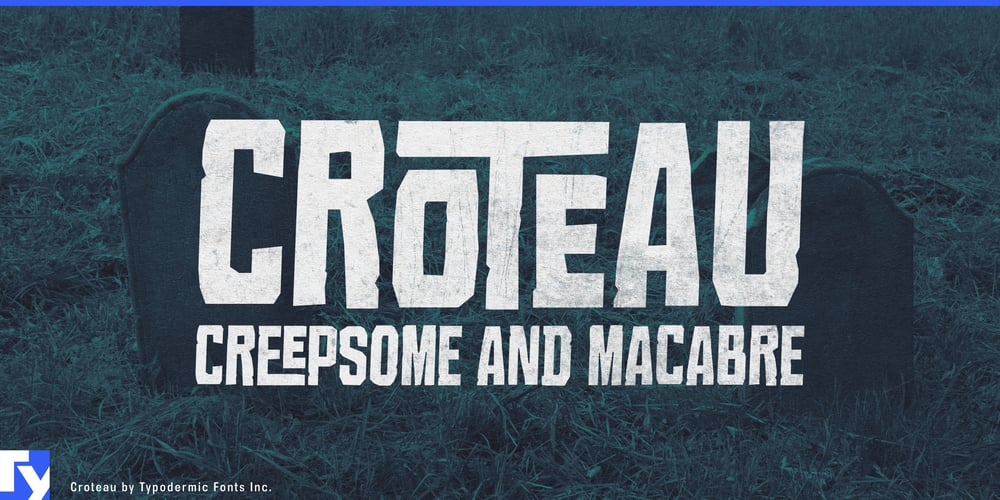
Croteau Font Family was designed by Ray Larabie and published by Typodermic. Croteau contains 1 styles and family package options. Step into the shadows with Croteau, a typeface that doesn’t just flirt with darkness—it embraces it with open arms. Born from the nightmarish visions of 1960s horror cinema, Croteau isn’t just a font; it’s an experience that will send shivers down the spine of your audience and breathe ghastly life into your designs.Croteau doesn’t merely communicate—it haunts. With its 250 bespoke ligatures, this typeface conjures an interlocking letter effect that’s as mesmerizing as it is unsettling. Each character seems to writhe and twist, creating a tapestry of terror that breaks the monotony of standard type and replaces it with an eerie dance of letters. This is typography that doesn’t just sit on the page—it lurks, ready to leap out at unsuspecting readers.In OpenType-savvy applications, Croteau truly comes alive. The interplay of its standard ligatures creates an atmosphere of unease that permeates every word. But beware: turning off this feature might break the spell. Keep the “standard ligatures” activated to ensure your message retains its full, horrifying potential. Croteau’s ability to terrify transcends language barriers. Supporting over 100 Latin-based European writing systems, it spreads its eerie influence across borders. Whether you’re crafting a bone-chilling novel in Norwegian or designing a haunted house poster in Polish, Croteau ensures your message remains as terrifying in Zulu as it is in Afrikaans.Imagine the possibilities: film posters that seem to bleed fear, book covers that readers hesitate to touch, or event invitations that promise a night of delightful fright. Croteau isn’t just a typeface—it’s a portal to a world where every letter holds the potential for horror. But Croteau isn’t just about fear—it’s about artistry. Its design pays homage to the golden age of horror, capturing the essence of a time when shadows loomed larger and every creak of a floorboard held potential for terror. It’s a tool for designers who understand that true horror lies not in what’s shown, but in what’s suggested.So, are you ready to give your audience goosebumps? To create designs that linger in the mind long after the lights go out? Embrace the darkness with Croteau.